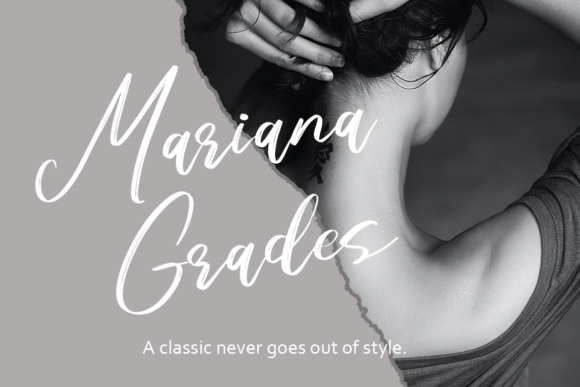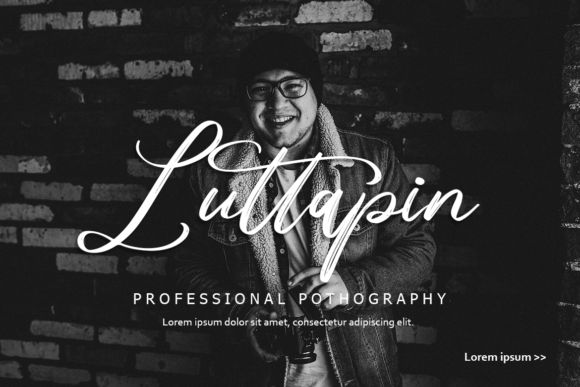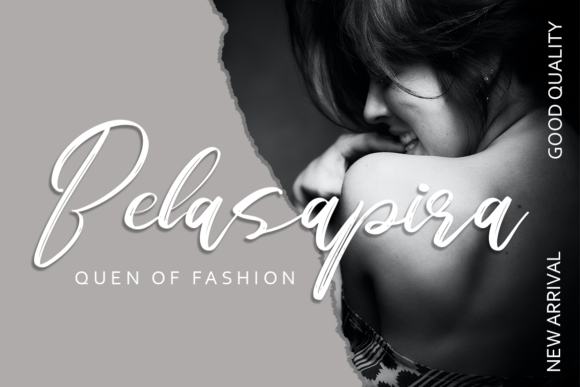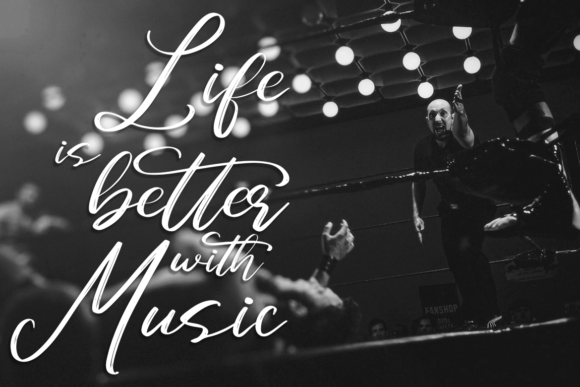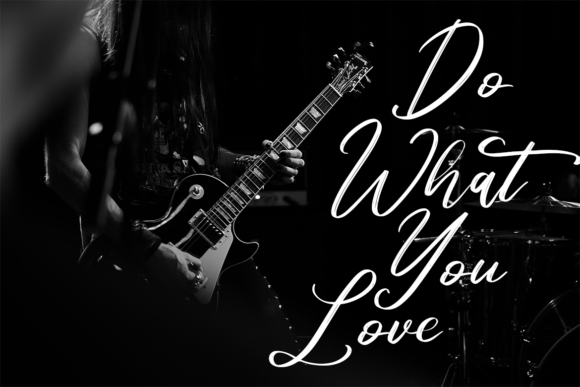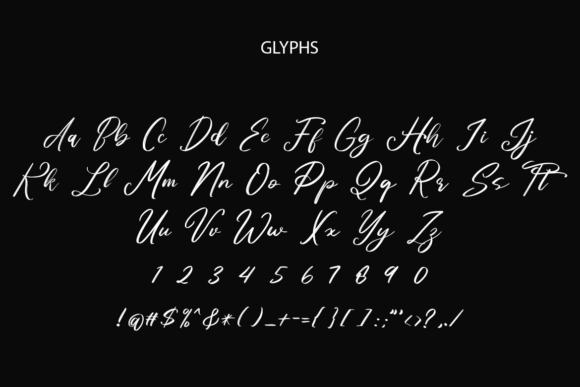
Introduction to Hallisya Font
Do you remember that moment when a single design element sparks an entire creative project? For many designers, it’s that one perfect font that brings their vision to life. The Hallisya Font is one of those game-changing resources that can elevate any design from ordinary to extraordinary.
This delicate, elegant, and flowing handwritten font boasts beautiful and well-balanced characters, making it a versatile design resource for a wide range of creative projects. With its high-quality typography, the Hallisya Font is perfect for designers who want to add a touch of sophistication and elegance to their work.
Whether you’re working on a design project with a transparent background or need a font to complement your free download assets, the Hallisya Font is an excellent choice. Its versatility and aesthetic appeal make it a valuable addition to any designer’s toolkit, and we can’t wait to explore its capabilities in more detail.
Key Features of Hallisya Font
- Unique and elegant design suitable for various creative projects, making it an excellent design resource.
- High-quality font with a transparent background, allowing for seamless integration with any design.
- Comes in a single weight, ideal for projects requiring a clean and minimalist look.
- Designed with a resolution of 300 DPI, ensuring crisp and clear display on various devices.
- Perfect for use in digital and print projects, including logos, branding materials, and marketing materials.
Honest Review: Hallisya Font
The font is free to download and comes in a range of weights, making it versatile for various design applications. The clean and elegant design makes it suitable for both personal and professional projects.
- ✨ High-quality design that is both modern and timeless
- ✨ Wide range of weights available, making it suitable for various design applications
- ✨ Transparent background, allowing for easy use in design projects
- ⚠️ Limited language support, which may be a concern for multilingual projects
- ⚠️ Some users may find the font to be too plain or lacking in character
Overall, I’m impressed with the Hallisya Font. While it may not be perfect, it’s a great addition to any designer’s toolkit. The high-quality design and transparent background make it a valuable resource for any creative project.
Tips for Getting the Most Out of Hallisya Font
For optimal results, use the Hallisya Font in conjunction with other high-quality design elements. Experiment with different font sizes and styles to find the perfect combination for your creative project. You can also use the font in combination with a transparent background to create a unique and visually appealing design.
The Hallisya Font is a versatile design resource that can be used for a variety of creative projects, including graphic design, digital art, and web design. Its high-quality design and transparent background make it an ideal choice for designers looking to create professional-looking designs.